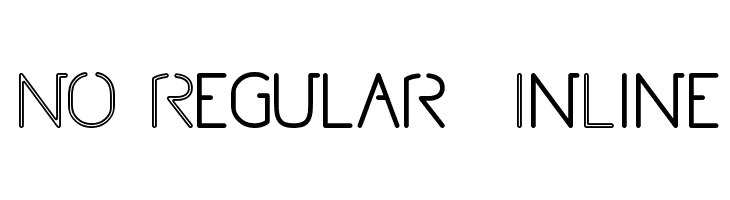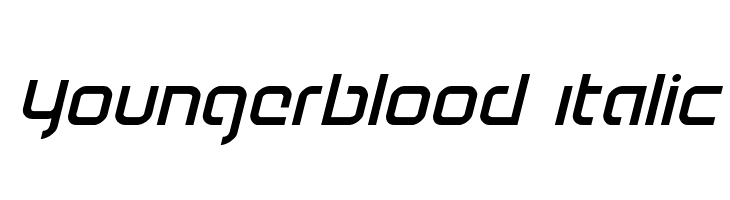
( Darrell Flood )
A bold, sharp serif font with high contrast and a dramatic style.
( Daymarius - www.creativefabrica.com/designer/Daymarius )
A serif font with sharp, angular serifs and a medieval touch.
A modern, italic font with geometric, angular characters and consistent line thickness.
A modern, italic font with a sleek, dynamic design and consistent stroke weight.
( Jorge Algarin - jorgealgarin01@blogspot.com )
A modern, geometric font with clean lines and rounded edges, perfect for a futuristic look.
( Luc Mahler )
A sleek, modern italic font with elongated, slightly condensed characters.
( Mm Fbrk - Marco Mirko Nani - www.behance.net/MarcoMirkoNani )
A modern inline font with geometric precision and a stylish, airy appearance.
( Nermin Kahrimanovic - www.behance.net/nermink )
A modern, angular font with a futuristic and edgy design.
( Otto Maurer Design - Otto Maurer - www.myfonts.com/foundry/Otto_Maurer/ )
A modern, italicized font with a futuristic and geometric design.
( Typodermic Fonts - Ray Larabie - www.typodermicfonts.com/ )
A futuristic, geometric font with sharp angles and clean lines.